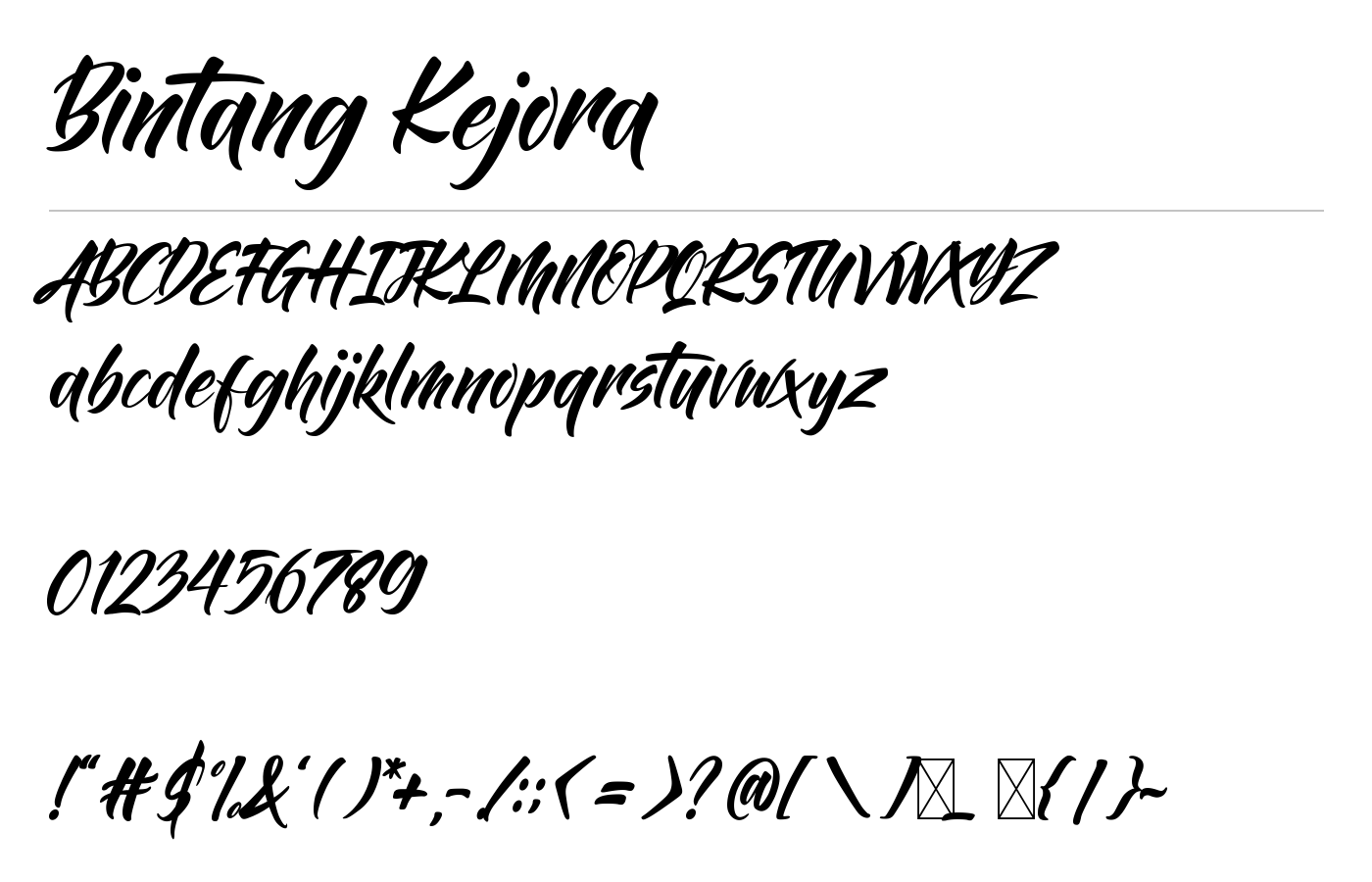
Bintang Kejora is a lively and expressive script font characterized by its bold, fluid strokes and a natural brush-like texture that conveys a warm, hand-lettered feel. Its slightly condensed letterforms with high contrast between thick and thin lines make it perfect for creating eye-catching headlines, logos, and branding that demand a personal and energetic touch. This font works wonderfully in creative and casual contexts, bringing a sense of individuality and dynamic style to any design.
Bintang Kejora Font
About Bintang Kejora Font